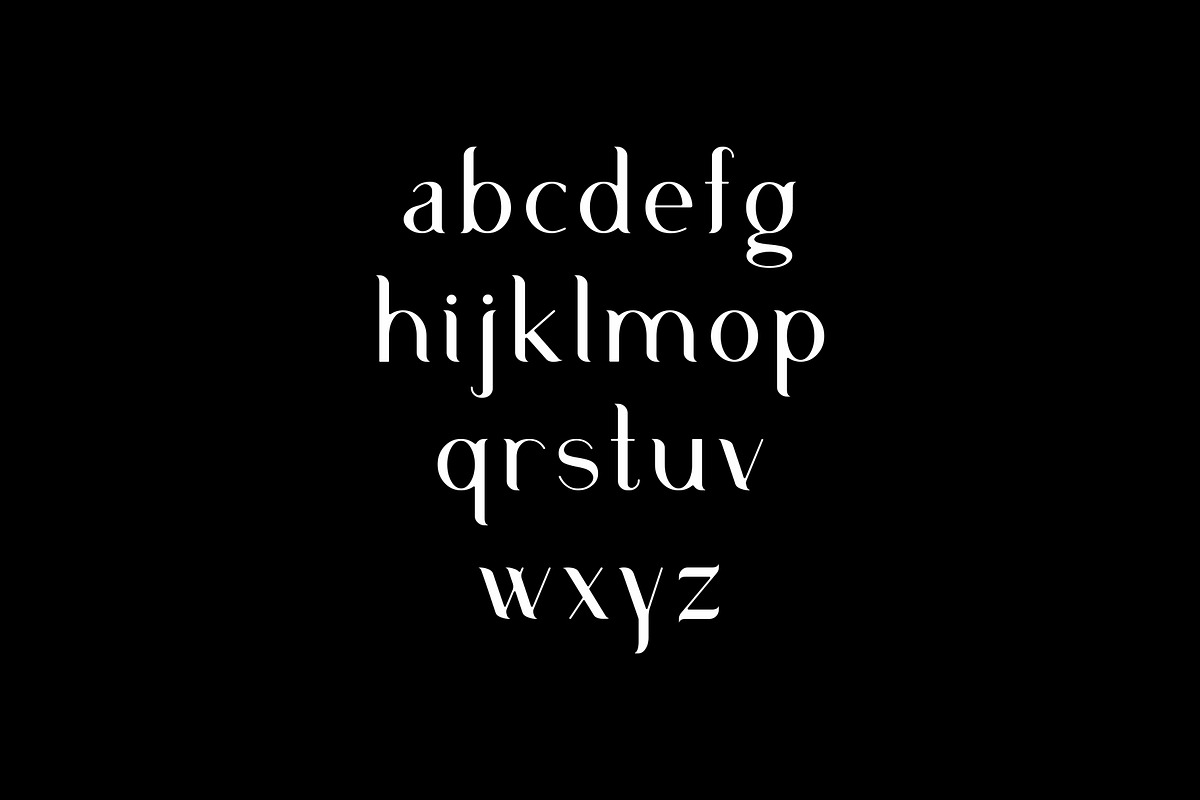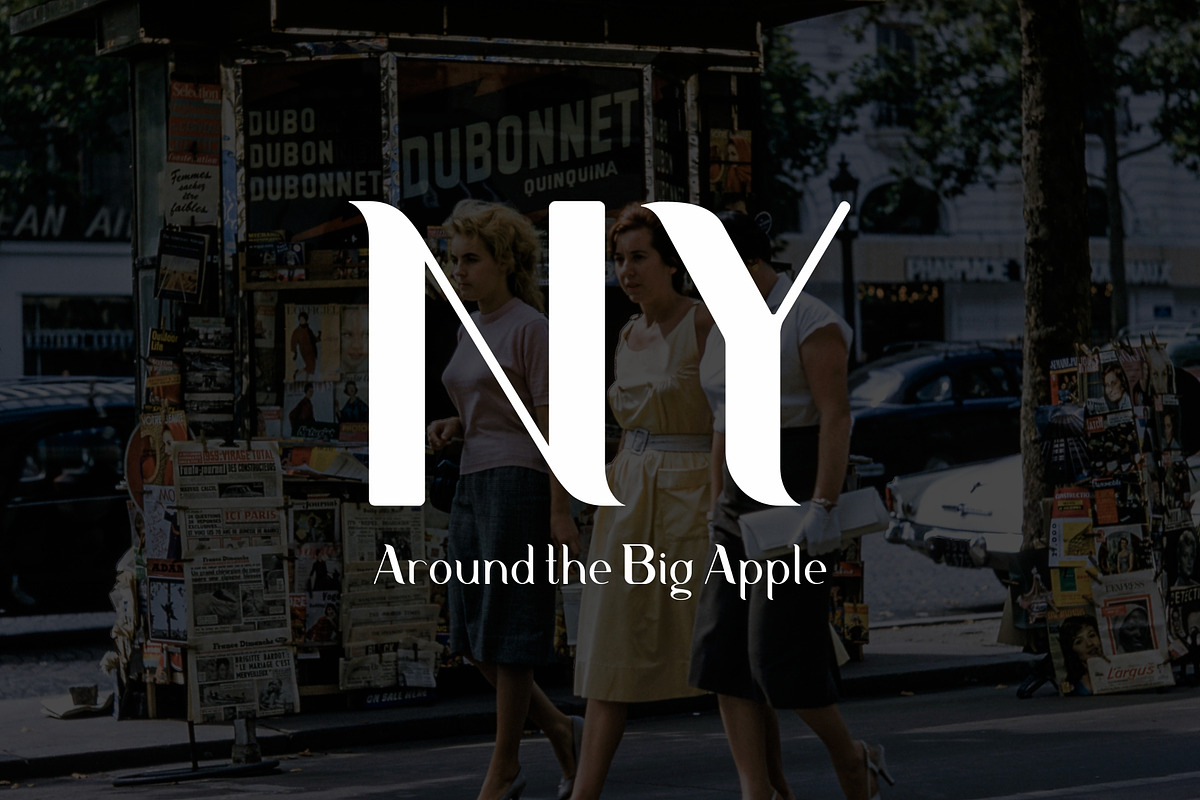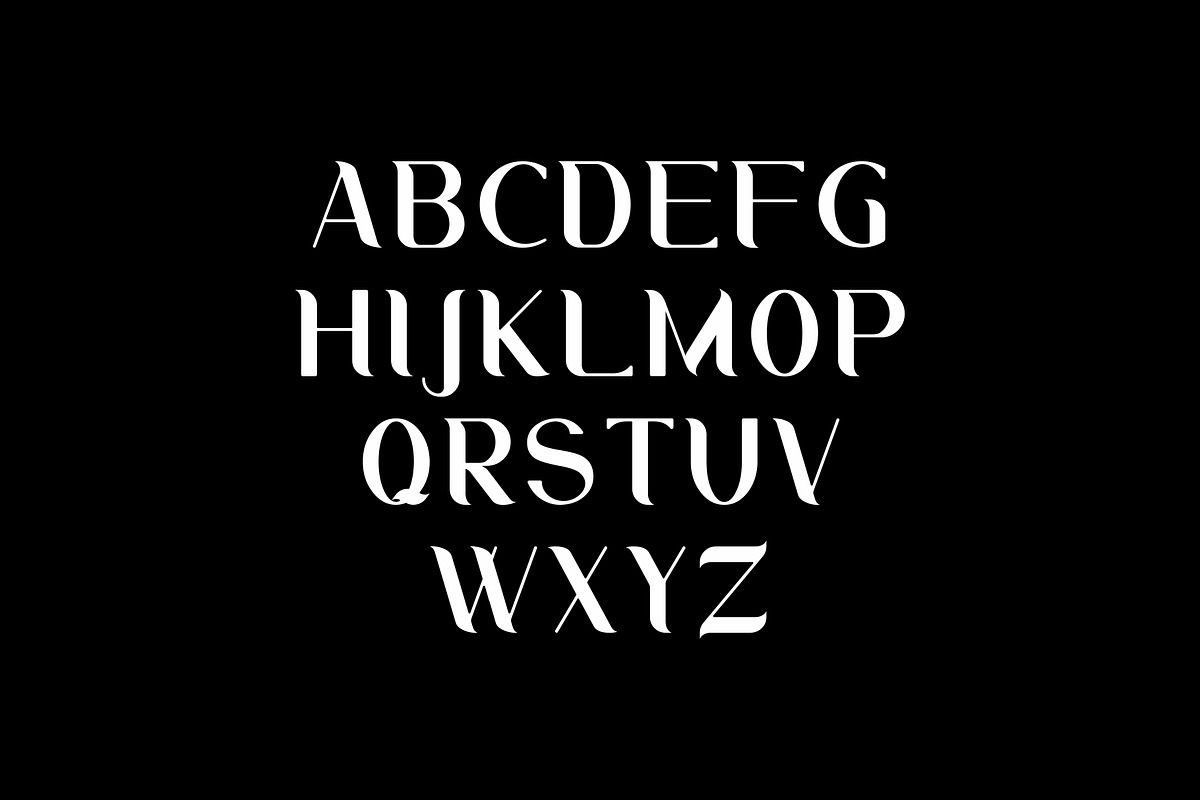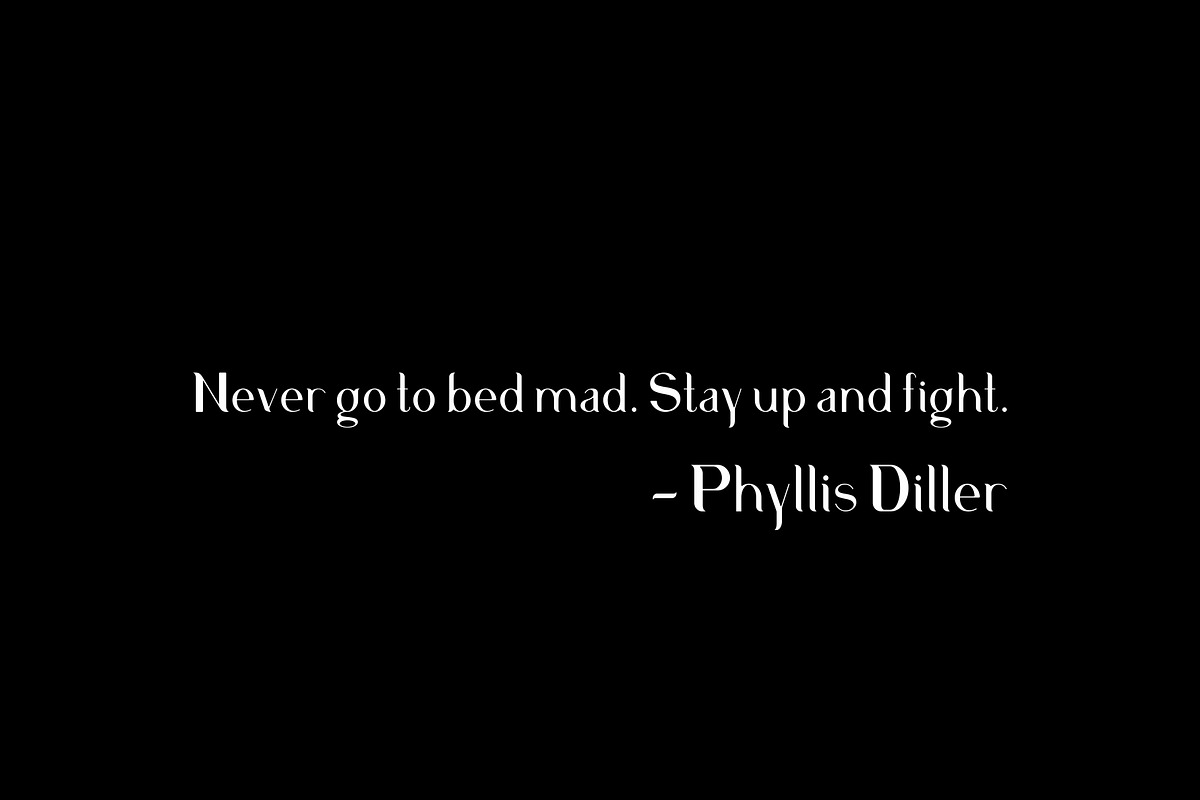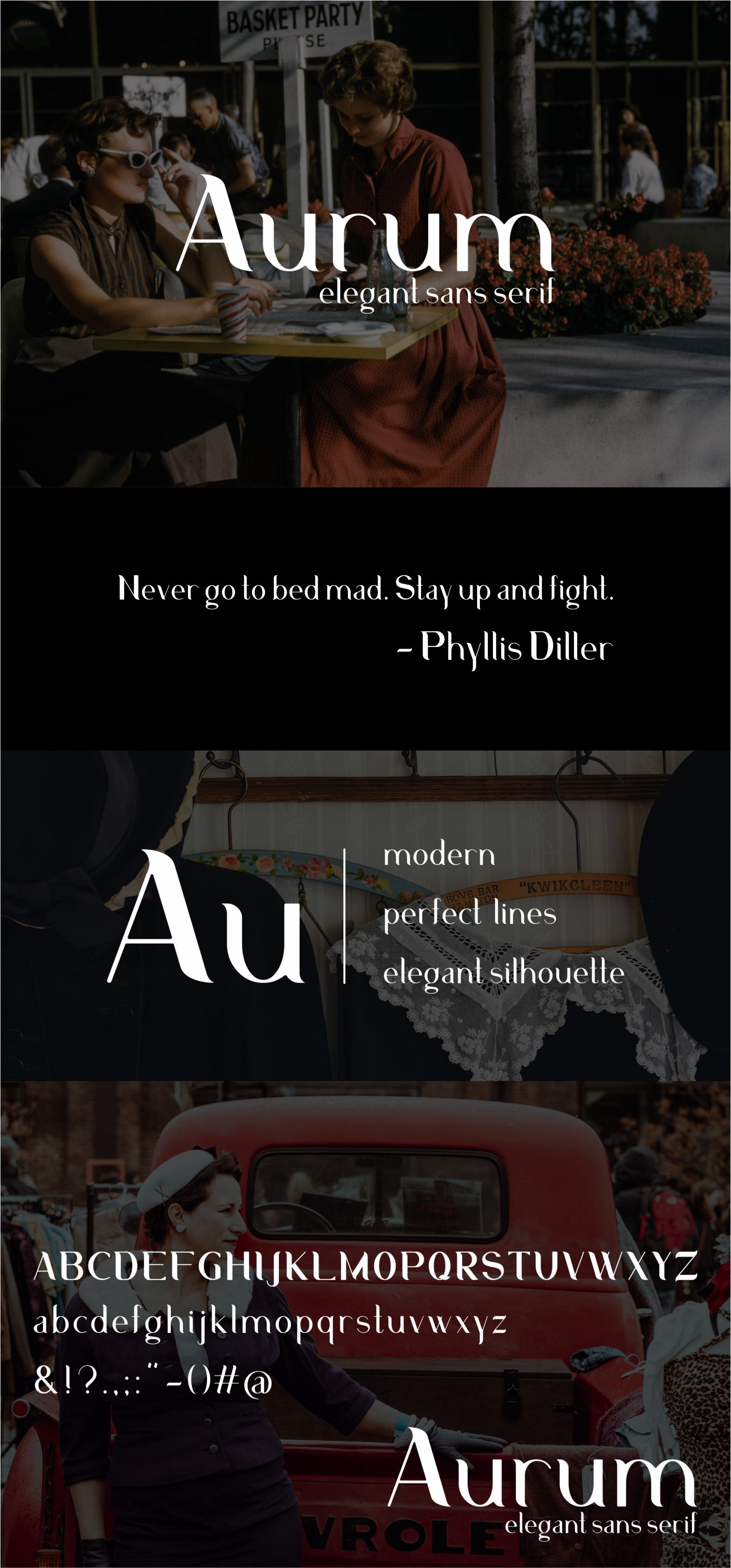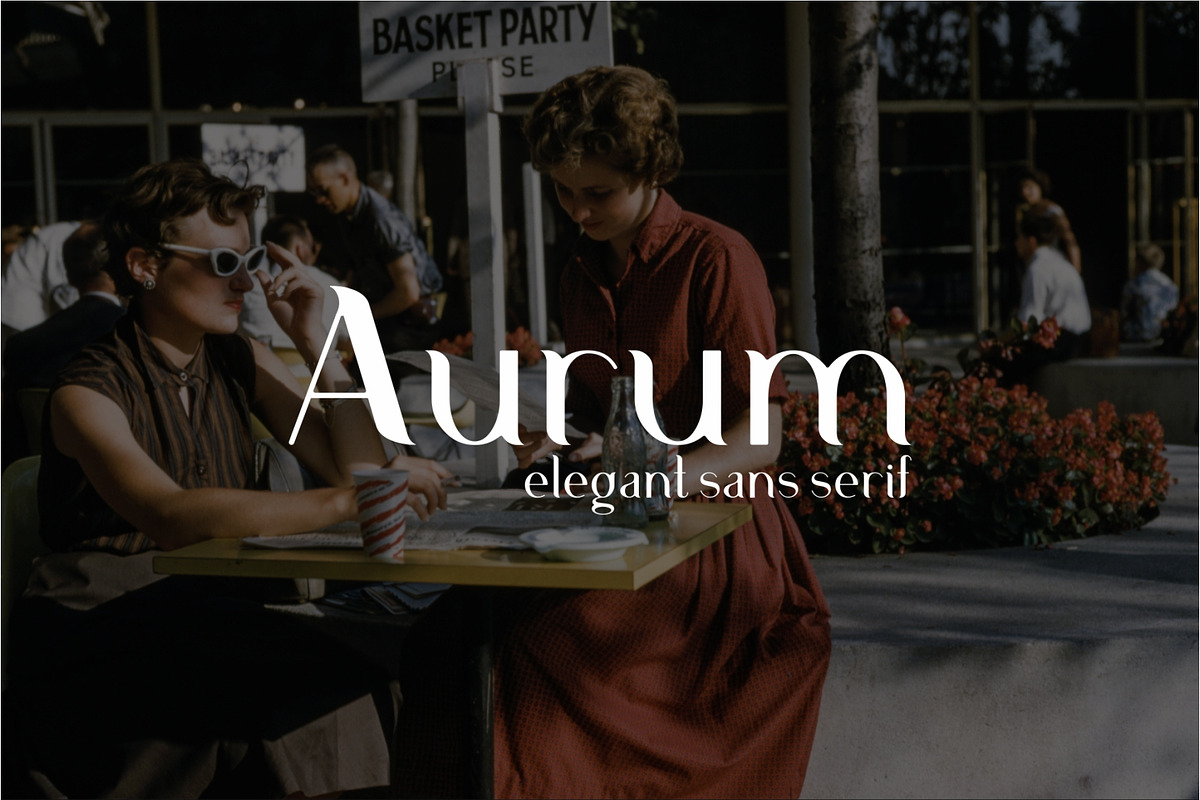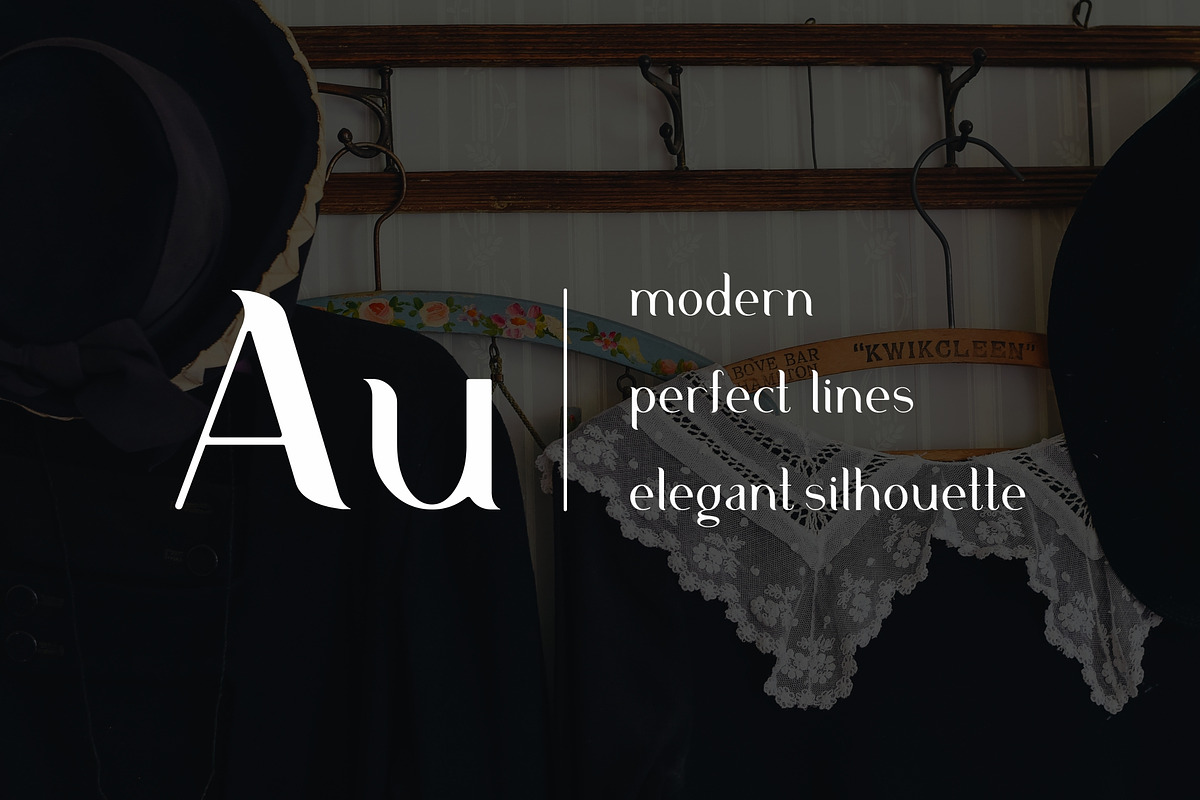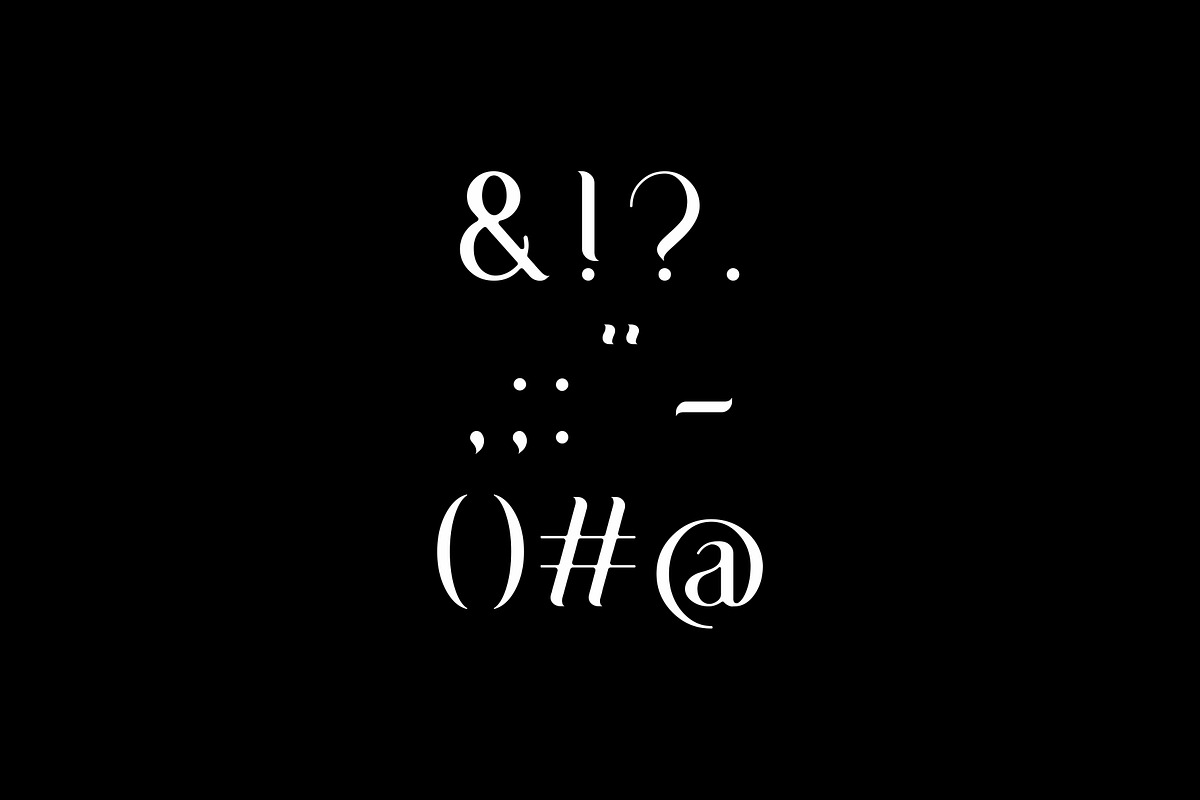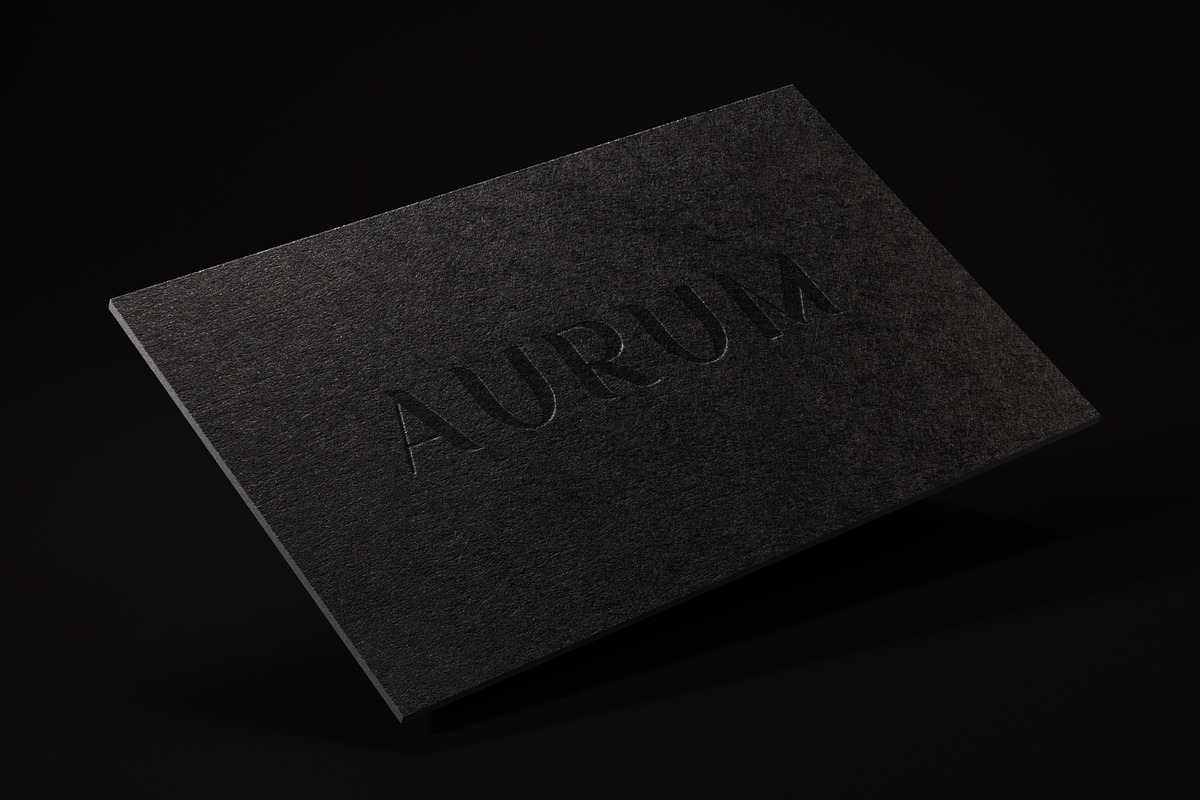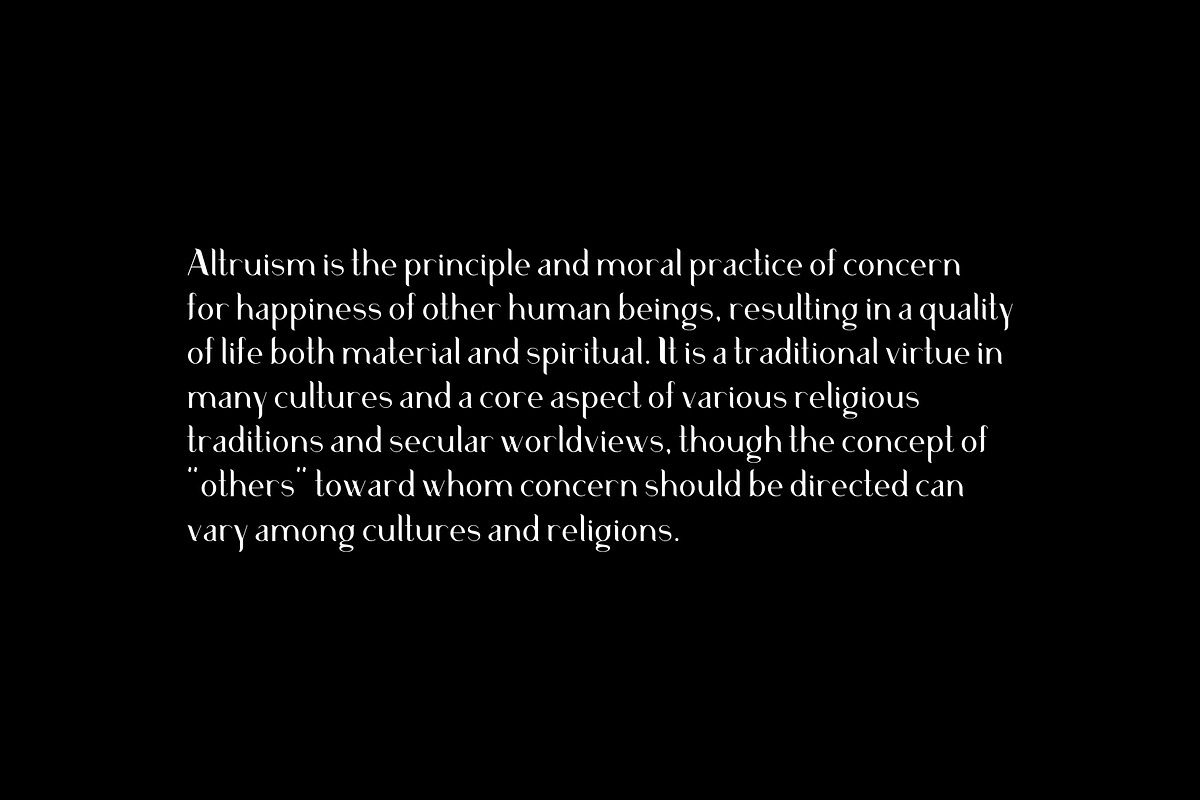
Aurum. Elegant Sans Serif typeface.
AURUM - clean and elegant Sans Serif font, designed for great headers, logo and branding, wedding invitations, quotes, and amazing typography compositions. Included uppercase and lowcase letters. Inspired with mixed vintage and modern typeface.
- Modern.
- Perfect lines.
- Elegant silhoutte.